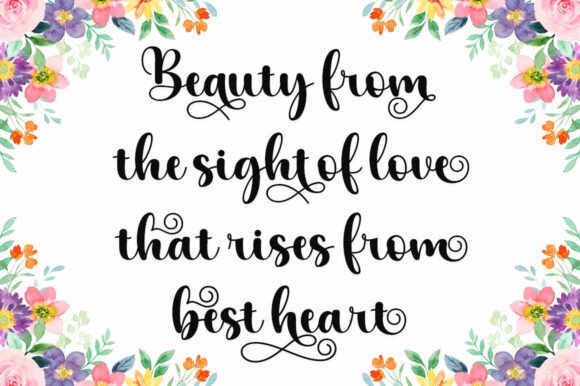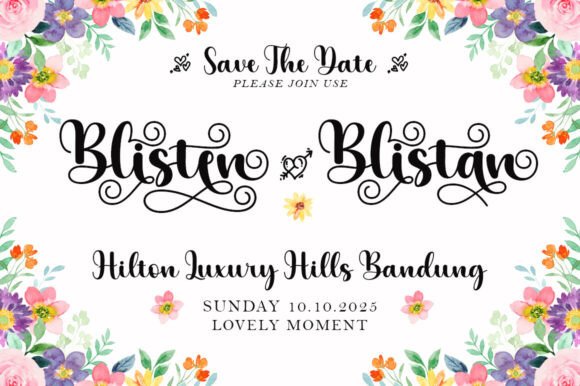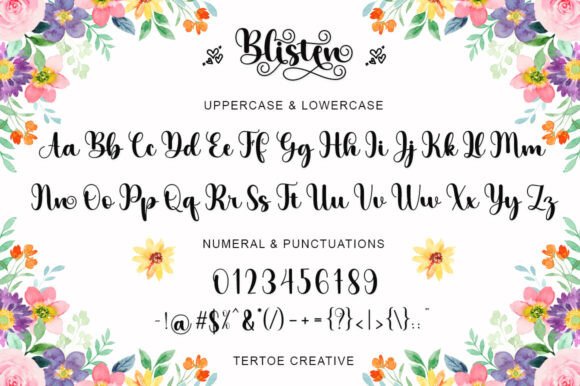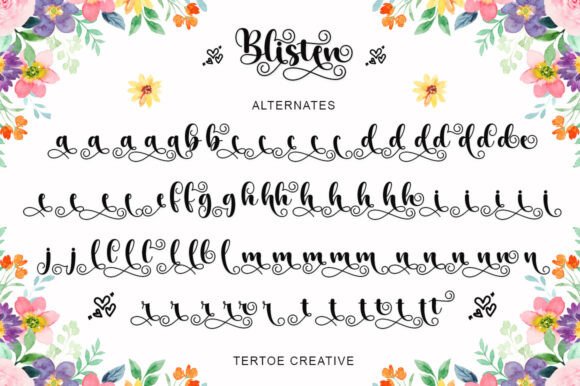
Blisten Font: Elevate Your Design Projects with Elegance and Charm
In the world of typography, few fonts manage to strike a balance between charm and elegance as effortlessly as Blisten. This stunning script font is a stylish homage to classic calligraphy, designed to elevate any design project to the highest level. Whether you’re working on branding, titles, wedding designs, invitations, signs, logos, labels, or more, Blisten is the perfect choice for designers and crafters looking to add a touch of sophistication and whimsy to their creations.
The Inspiration Behind Blisten
Blisten’s design is rooted in the rich tradition of calligraphy, a art form that has been perfecting the written word for centuries. The font’s creator aimed to capture the fluidity, grace, and beauty of hand-written calligraphy, while also infusing it with a modern twist that makes it versatile and easy to use. The result is a font that feels both timeless and contemporary, capable of fitting into a wide range of design contexts.
Key Features of Blisten Font
- Elegant and Charming: Blisten’s letters are designed with elegance and charm in mind. Each character is crafted to contribute to a luxurious feel, making it perfect for high-end designs.
- Versatile: Despite its calligraphic roots, Blisten is incredibly versatile. It can be used for a variety of projects, from formal invitations and wedding designs to branding and advertising.
- Easy to Read: One of the challenges with script fonts is readability. Blisten strikes a perfect balance between stylization and legibility, ensuring that your message is conveyed clearly and effectively.
- Extensive Character Set: Blisten comes with an extensive character set, including uppercase and lowercase letters, numbers, and punctuation, allowing for a wide range of design possibilities.
Using Blisten in Design Projects
Blisten’s flexibility makes it an excellent choice for a multitude of design projects. Here are a few ideas to get you started:
- Wedding Designs: Create beautiful wedding invitations, save the dates, and ceremony programs that set the tone for a stylish and memorable event.
- Branding and Logos: Use Blisten to add a touch of elegance to your brand’s identity. It’s perfect for luxury brands, boutiques, and businesses looking to convey sophistication.
- Signs and Posters: Whether you’re designing a sign for a boutique, a poster for an event, or a menu for a restaurant, Blisten can add a level of charm and attractiveness that draws people in.
- Packaging: Elevate your product packaging with Blisten. It’s a great way to make your products stand out on the shelves and convey a sense of luxury.
Tips for Working with Blisten
To get the most out of Blisten, consider the following tips:
- Pair with Complementary Fonts: While Blisten is stunning on its own, it can be even more effective when paired with complementary fonts. Look for sans serif fonts or other script fonts that offer contrast.
- Experiment with Colors: Blisten looks beautiful in a variety of colors. Don’t be afraid to experiment with different hues to find the perfect match for your design.
- Play with Ligatures: Many script fonts, including Blisten, come with ligatures – combinations of letters that are designed to fit together. Using ligatures can add an extra layer of authenticity to your calligraphy.
Blisten font is a remarkable addition to any designer’s toolkit. Its blend of elegance, charm, and versatility makes it suitable for a wide range of projects. Whether you’re a professional designer or a crafter looking to add a personal touch to your creations, Blisten is sure to inspire and elevate your work. With its roots in classic calligraphy and its eye towards modern design sensibilities, Blisten feels equally charming and elegant – a true gem in the world of typography.